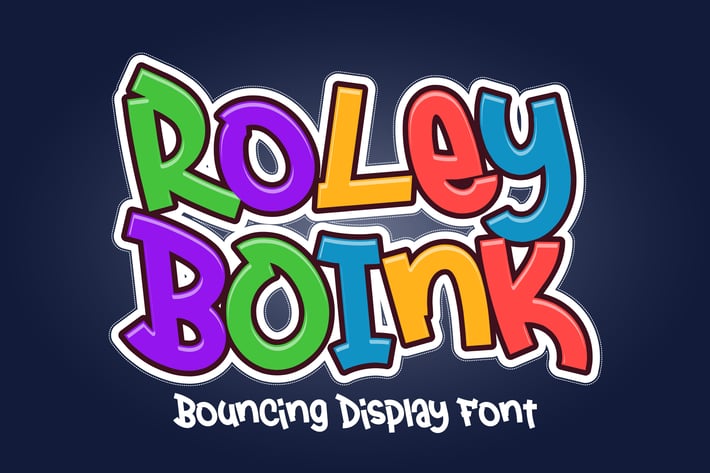
Roley Boink - Bouncing Display Font
Say hello to Roley Boink font. Made with love and joy. Handwritten look, so it will make your design more beautiful, cute, fun, and colorful.